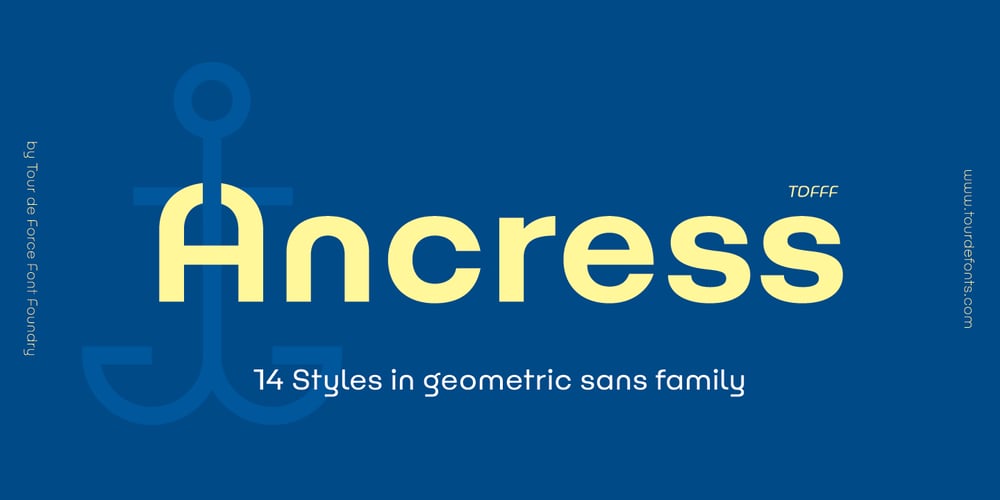
Ancress
Ancress font
Ancress Font Family was designed by Dusan Jelesijevic and published by Tour De Force. Ancress contains 14 styles and family package options. Ancress is modern geometric sans serif family with display elements. Designed in 14 styles with extended Latin character map, Ancress uses simple geometric shapes for achieving all characteristics of modern sans family: wide versatility, full legibility and design recognition. Letter shapes are visually softened with rounded corners and straight endings. Characteristic letters are visible in every word typed with Ancress, so it is not a typeface that differs from others by single letter only, it is graphically well balanced and thymically smooth typeface that should refine any design project – from editorial design, posters, packages, branding to websites, applications and outdoor graphics.